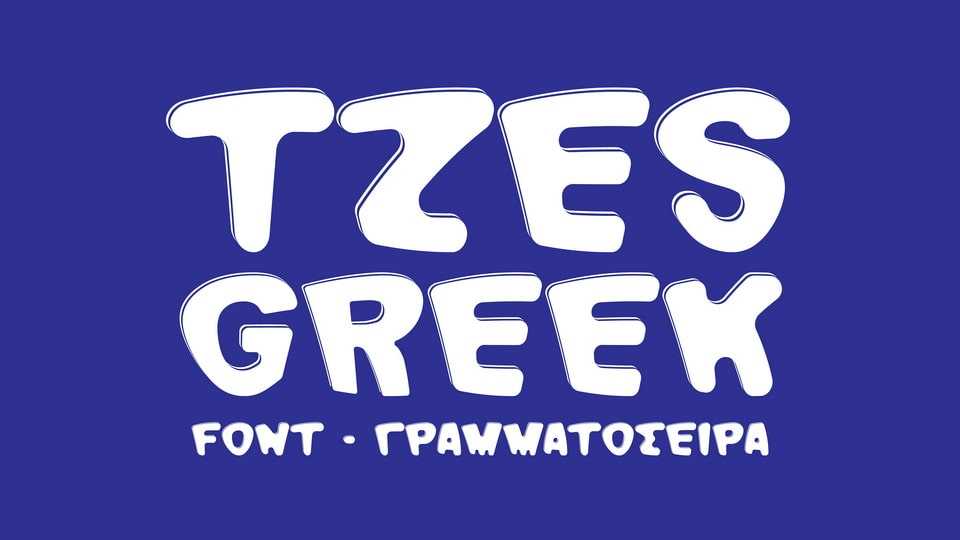
Download TzesGreek font, a bold and playful display typeface with unique personality. TzesGreek font is best for movie titles, comics, games, posters and so on.
Designer: Christos Lentzaris